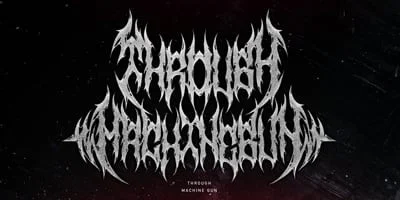
Monkey Rhumble Metal Font
Monkey Rhumble Metal Font is perfect for heavy metal band logos, underground music venues, rebellious skateboard graphics, punk rock festivals, extreme sports branding, garage band merchandise, aggressive gaming titles, wild party events, chaos-themed designs, and any ferocious project that celebrates the untamed energy and primal rebellion of underground metal culture.
What makes Monkey Rhumble Metal Font exciting is its wild ferocity that captures the primal energy of underground metal music and the chaotic rebellion of untamed artistic expression. This typeface embodies the spirit of raw musical power with jagged letterforms that seem to thrash and rumble like thunderous drums and screaming guitars. The font's savage character makes it perfect for brands and projects that want to communicate raw energy, rebellion, and the uncompromising intensity of underground culture that refuses to be tamed.
The Monkey Rhumble Metal Font family includes multiple weights and distorted variations, featuring regular, bold, and ultra-heavy versions along with corroded styles and alternate characters that simulate battle damage and sonic destruction. This comprehensive collection allows designers to create authentically savage typography that maintains the font's signature wild character while providing flexibility for various underground music and extreme design applications.
When exploring authentic underground metal typography, Monkey Rhumble Metal Font represents an exceptional opportunity to work with a typeface that genuinely captures the spirit of primal rebellion and sonic chaos. This font demonstrates innovative design thinking by embracing the beautiful brutality and uncontrolled energy that define both underground metal music and the raw expression of artistic rebellion against conventional society.
Professional designers appreciate Monkey Rhumble Metal Font for its ability to instantly establish credibility within underground music communities and communicate raw authenticity across various alternative platforms. The font's ferocious character makes it particularly effective for metal bands, extreme sports brands, and underground venues seeking to connect with audiences who value artistic integrity and uncompromising creative expression over mainstream appeal.
The enduring appeal of Monkey Rhumble Metal Font lies in its perfect representation of primal energy and artistic rebellion that continues to inspire underground communities worldwide. This typeface serves as a powerful symbol of creative freedom and the courage to express raw emotion through unfiltered artistic channels that challenge conventional boundaries.
For creative professionals working with underground and extreme brands, Monkey Rhumble Metal Font represents the ultimate typography solution that brings authentic primal energy and savage rebellion to any application, ensuring designs reflect the wild intensity and uncompromising spirit that define true underground metal culture and extreme artistic expression.